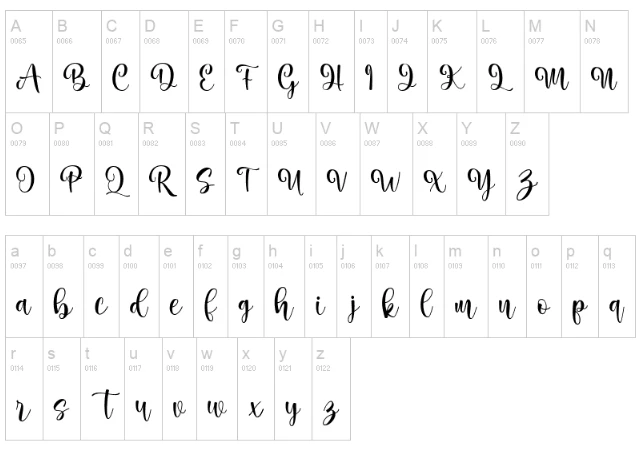
Marlina Melvin Font is now accessible! A charming script and Calligraphy typeface with flowing lettering. Using a pointed pen and ink, it is painstakingly made. Each letter is one-of-a-kind, making it ideal for anyone looking for a contemporary calligraphy font. The author has spent many hours designing and refining this Font with a plethora of extra characteristics so that you can have the effect of a modern calligraphy script produced by you.
Marlina Melvin typeface is a Latin calligraphy-inspired font that includes uppercase, lowercase, numerals, punctuations, and numerous variations on each character, as well as OpenType alternates. You’ll need an application that supports OpenType capabilities, such as Adobe Illustrator CS, Adobe Indesign & CorelDraw X6-X7, Microsoft Word 2010, or later versions, to activate the OpenType Stylistic alternatives. Silverdav created it and shared it. Marlina Melvin has a romantic and one-of-a-kind vibe. This typeface has previously been widely used in wedding and greeting cards so that you can use it without a worry in your greeting or wedding cards.
It’s perfect for wedding invites, thank you cards, quotes, greeting cards, logos, business cards, and any other design that calls for a handwritten touch. This Font is a must-have for everyone who enjoys giving handcrafted gifts to their loved ones.